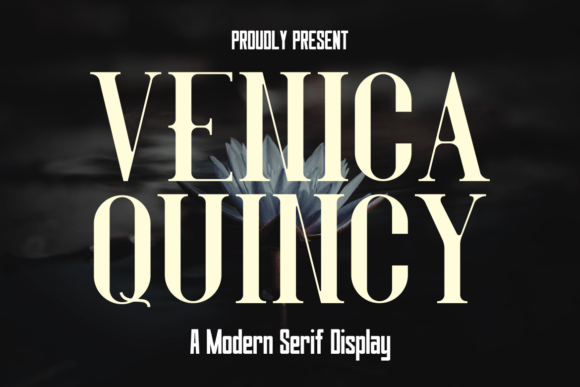
Introducing Venica Quincy Font, the serif font that's both elegant and sharp. Its meticulous design and balanced proportions make it perfect for print design, promotional materials, and magazine layouts.
Venica Quincy Font is a typographic masterpiece that will add a touch of sophistication and class to your designs. Its clean lines and crisp curves will make your words stand out and be remembered.
Whether you're creating a product label, a marketing brochure, or a website, Venica Quincy Font will give your words the impact they deserve. It's a font that's both beautiful and effective, and it's sure to make a lasting impression.